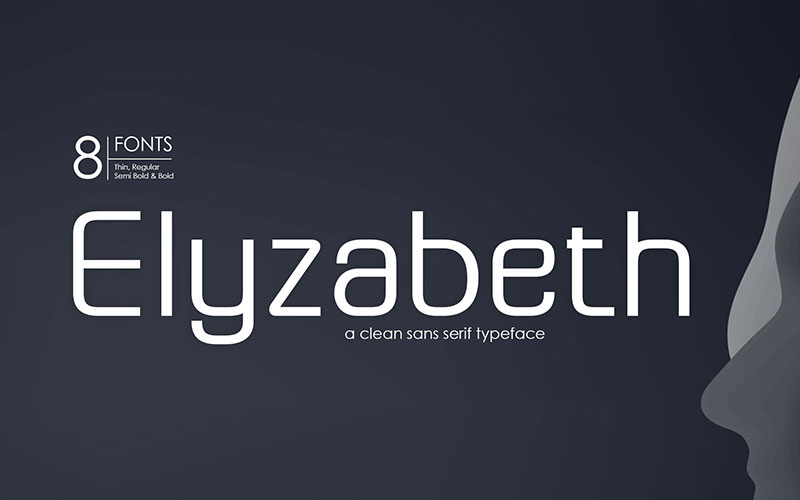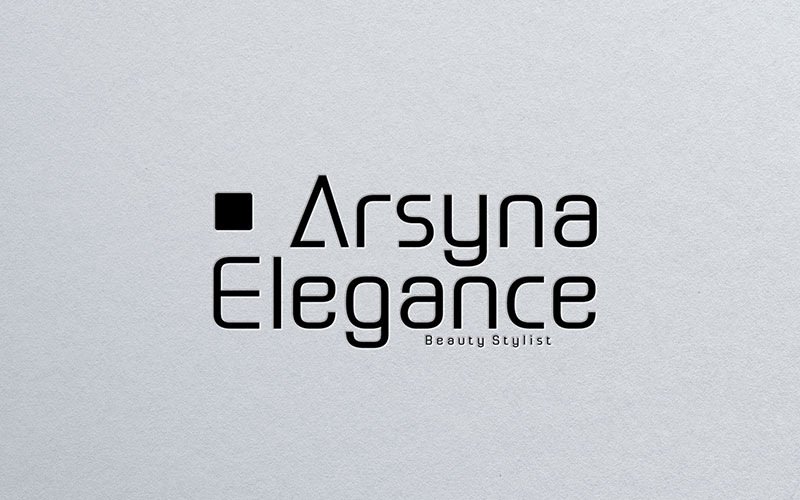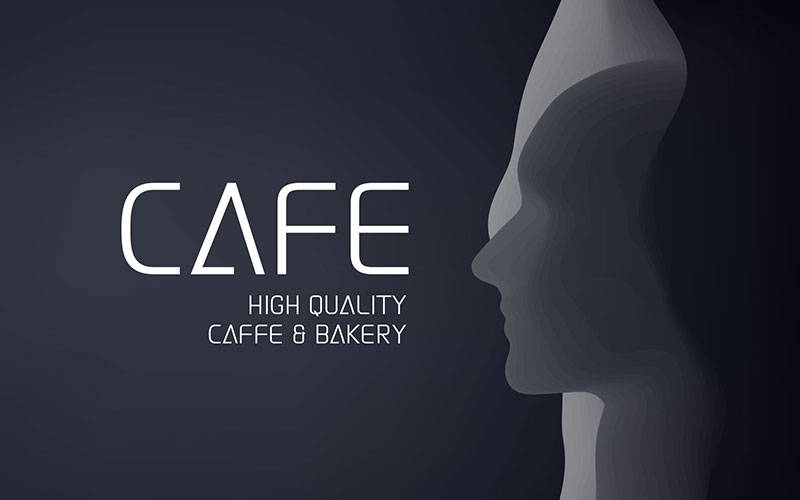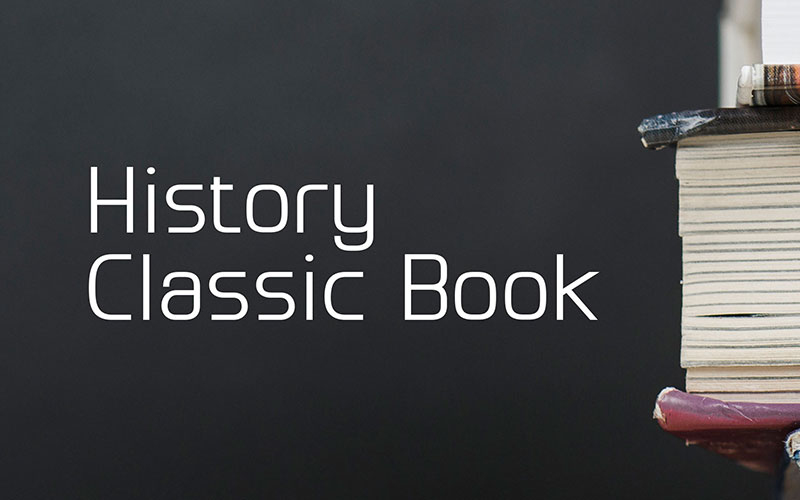
Are you tired of using the same old font family in your designs? Then, upgrade your font game with the
Elyzabeth Pro Font Family
Elyzabeth Pro is an exquisite and practical sans-serif font family and is precise in its creation.
Clean fonts that stand upright elegantly, are soft and familiar, easy to read, and are not dull to the reader.
The Elyzabeth Pro Font Family is the perfect blend of modernity and tradition.
Its elegant curves and clean lines give a sophisticated touch to any project, while its multiple weights and styles offer versatility and flexibility to fulfill all your design needs.
So, if you want to add a touch of elegance and sophistication to your designs, Elyzabeth Pro Font Family is the perfect choice. Try it now and see the difference for yourself!